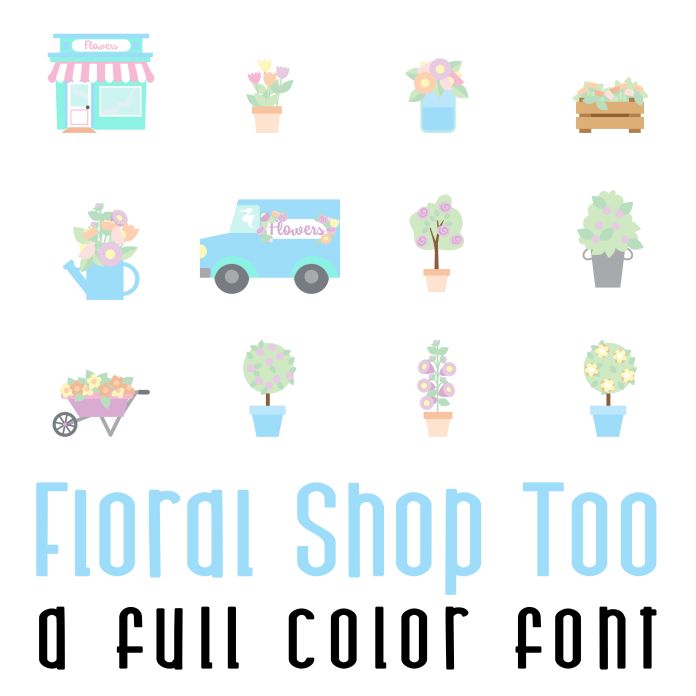
Floral Shop Too Full Color Font features vibrant and intricate floral patterns in a variety of colors. This adorable full-color doodlebat font features 26 beautiful florals. Perfect for cards, crafts, gifts, decor, scrapbook pages, planner stickers, and more!